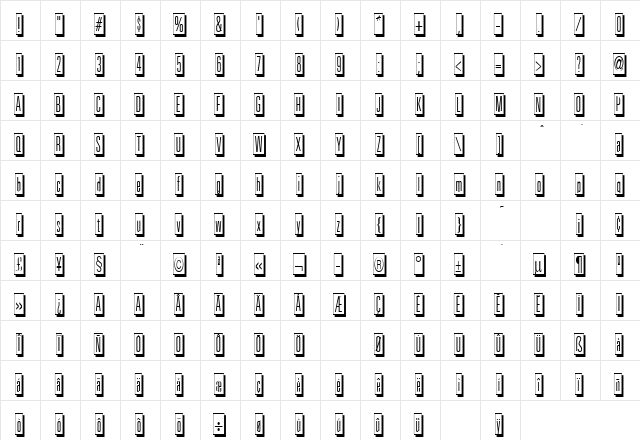
Image Regular
Design Context for Image Typeface
Image is a composed and adaptable typeface that performs quietly and consistently across a wide range of design contexts.